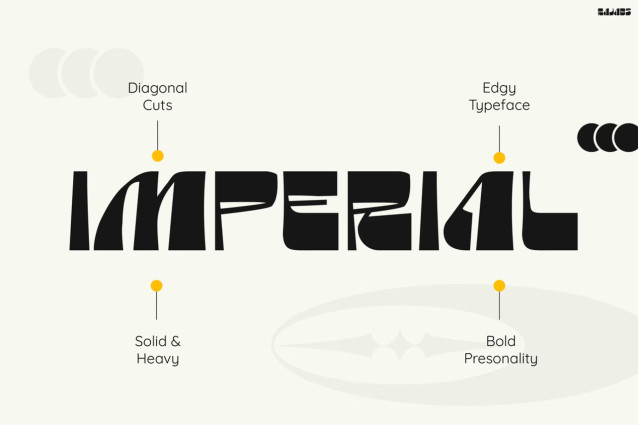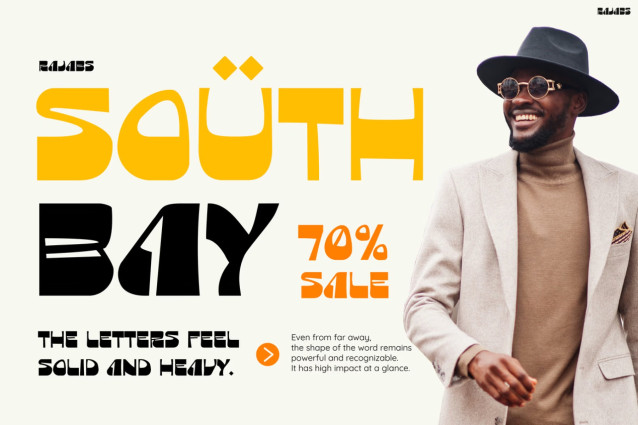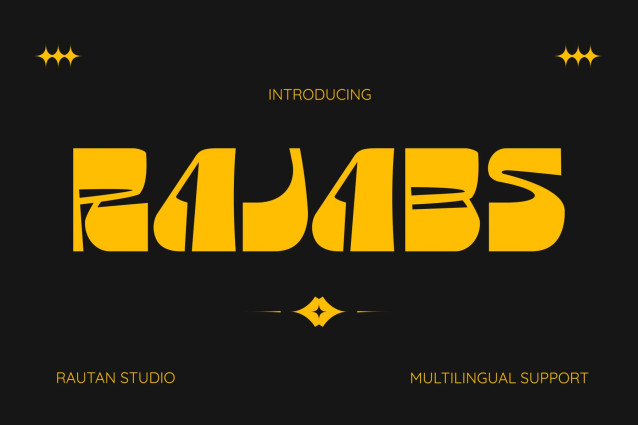
Rajabs Font is a bold, heavy display font with an edgy, Middle Eastern-inspired aesthetic. Characterized by its solid, blocky letterforms, the typeface features sharp diagonal cuts and high-contrast counters that create a sense of tension and dynamic movement. Its distinctive, stylized curves and diamond-shaped diacritics give it an instant logo-like quality.
Best suited for display use, this typeface is a natural fit for editorial headlines, music album covers, product packaging, streetwear apparel, and event posters. Its strong personality makes it an excellent choice for projects requiring a bold, culturally resonant visual identity that commands attention at large sizes.